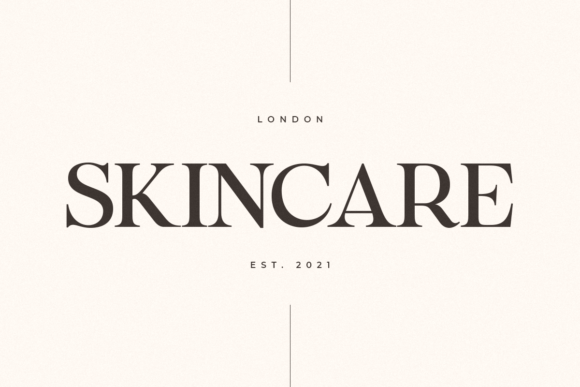
Ganigar Font
Ganigar is an elegant and bold serif font. Fall in love with its incredibly versatile style and use it to create gorgeous wedding invitations, beautiful stationary art, eye-catching social media posts, and much more!